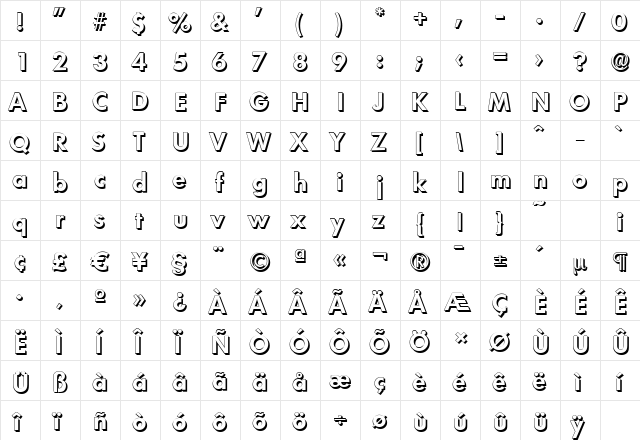
LimerickShadow Bold Font Preview
LimerickShadow Bold
Design Context for LimerickShadow Typeface
LimerickShadow is built around its visual character rather than neutral utility — its distinctive forms are designed to make an impression at display sizes. The heavy weight commands attention and anchors typographic hierarchies.
Font Pairing: Pair with a clean neutral sans-serif for body copy to let LimerickShadow's character lead without overwhelming the composition.
Pro Tip: Treat LimerickShadow as the centrepiece of your typographic hierarchy. One strong heading set in a decorative face can carry an entire layout.